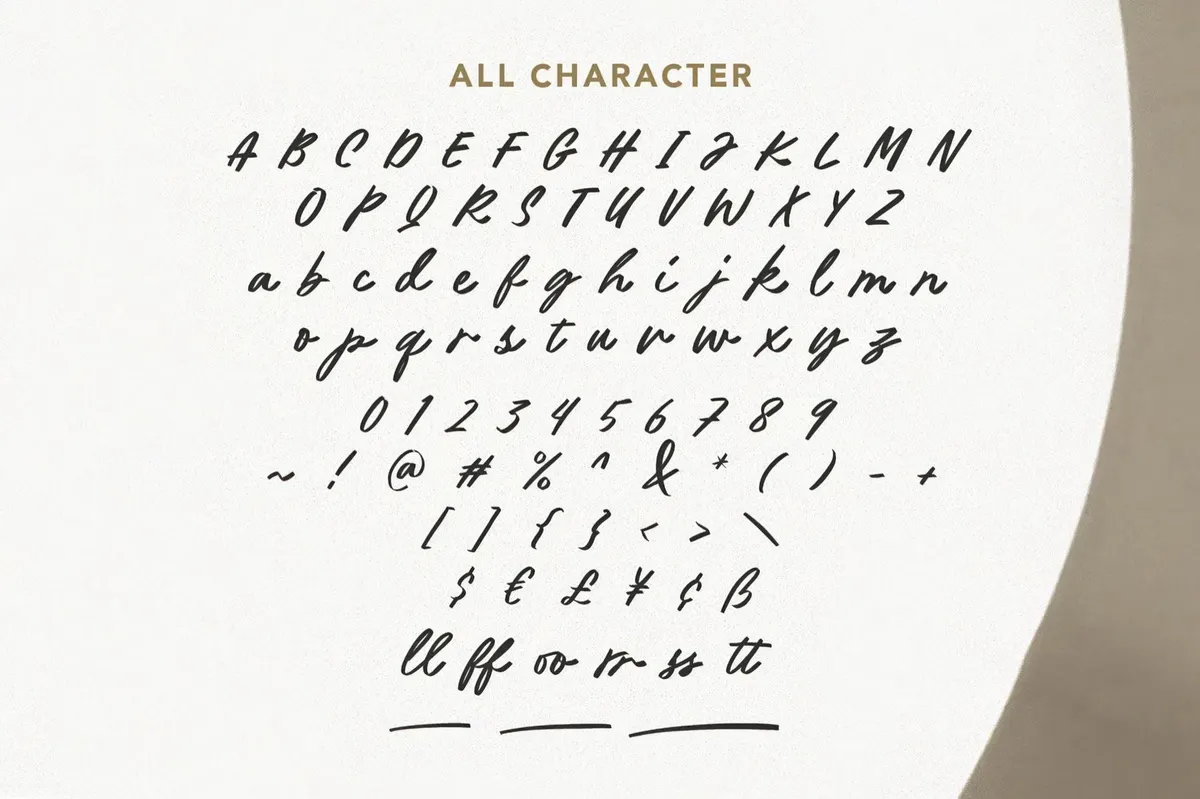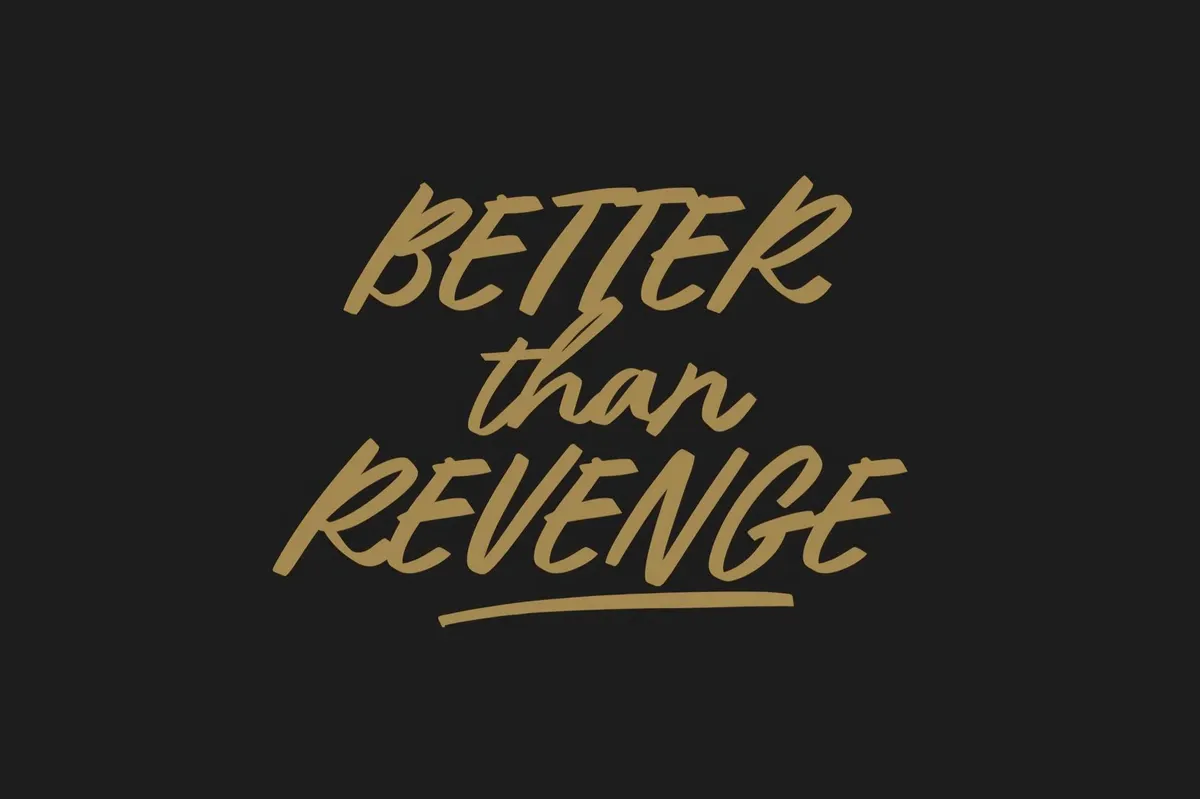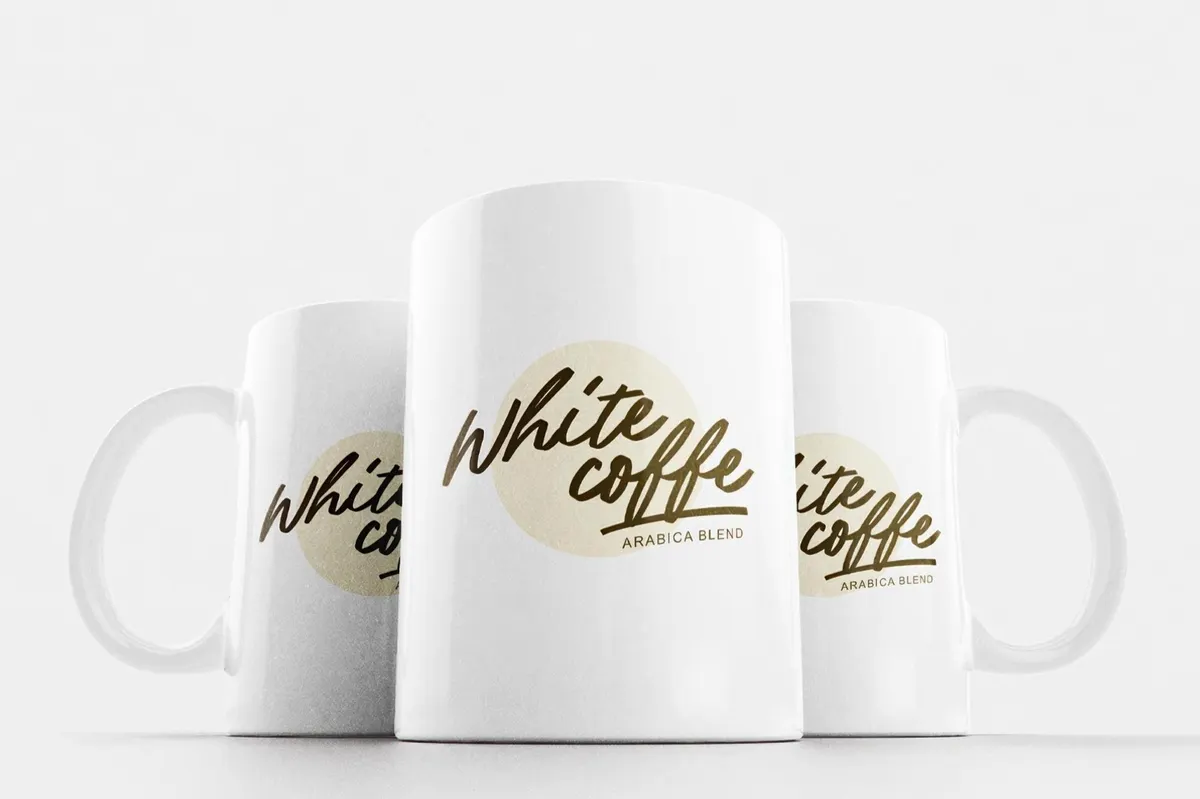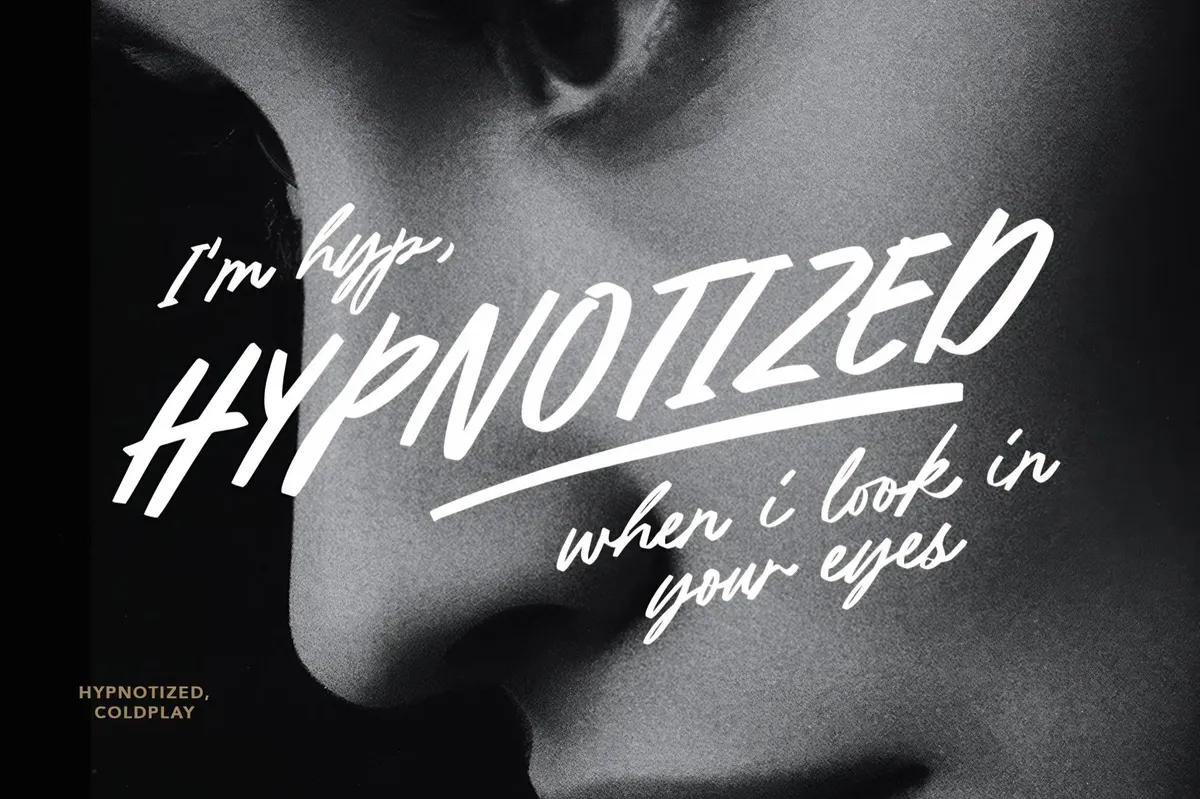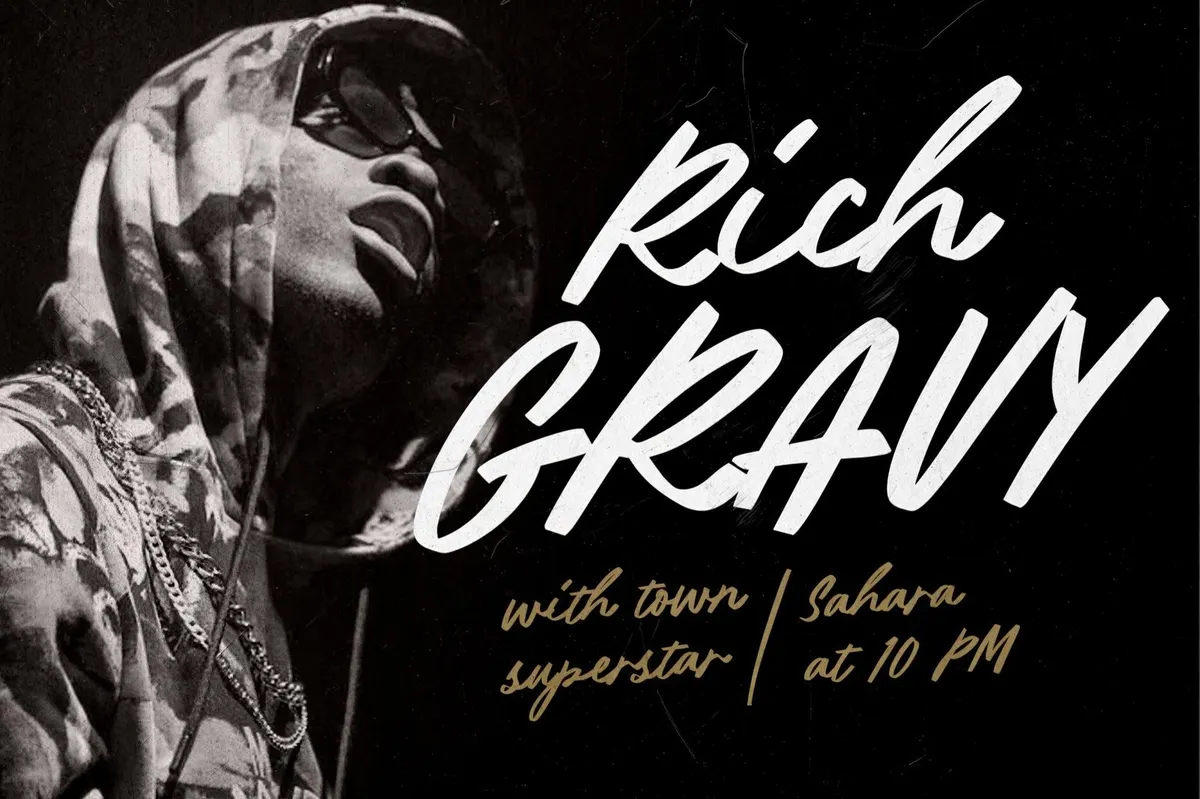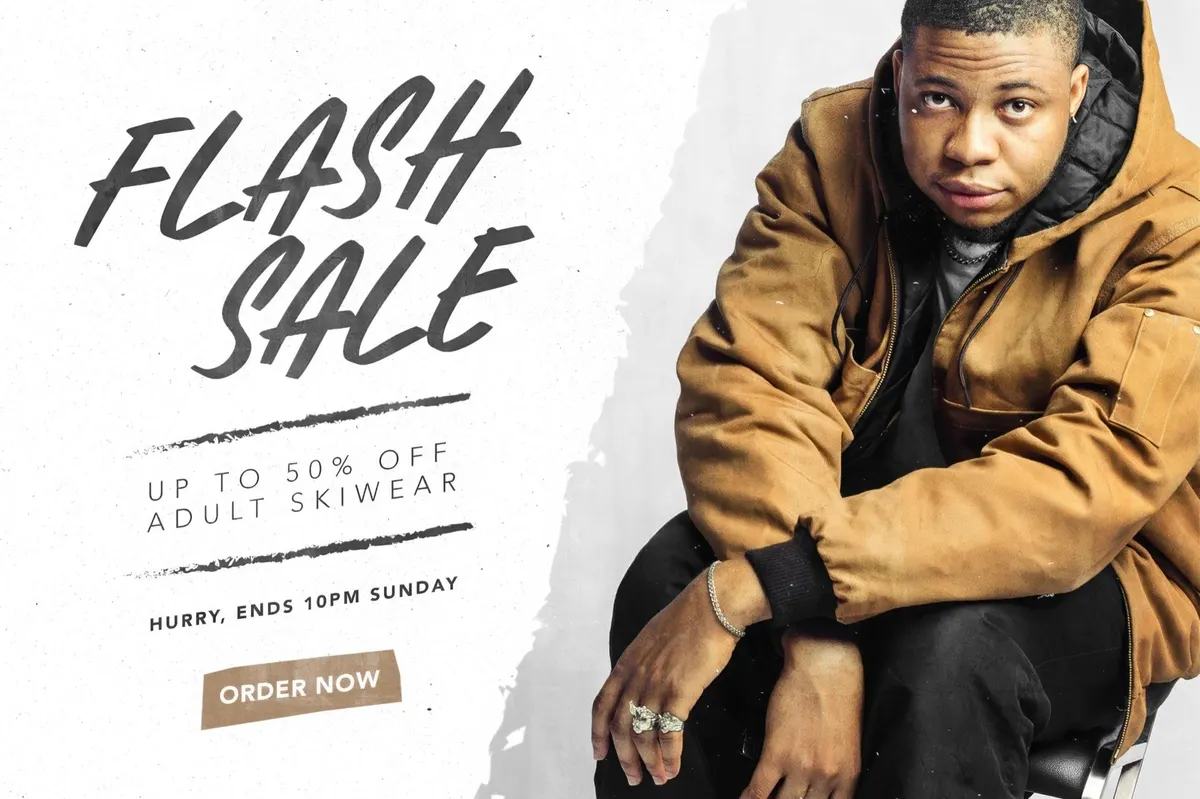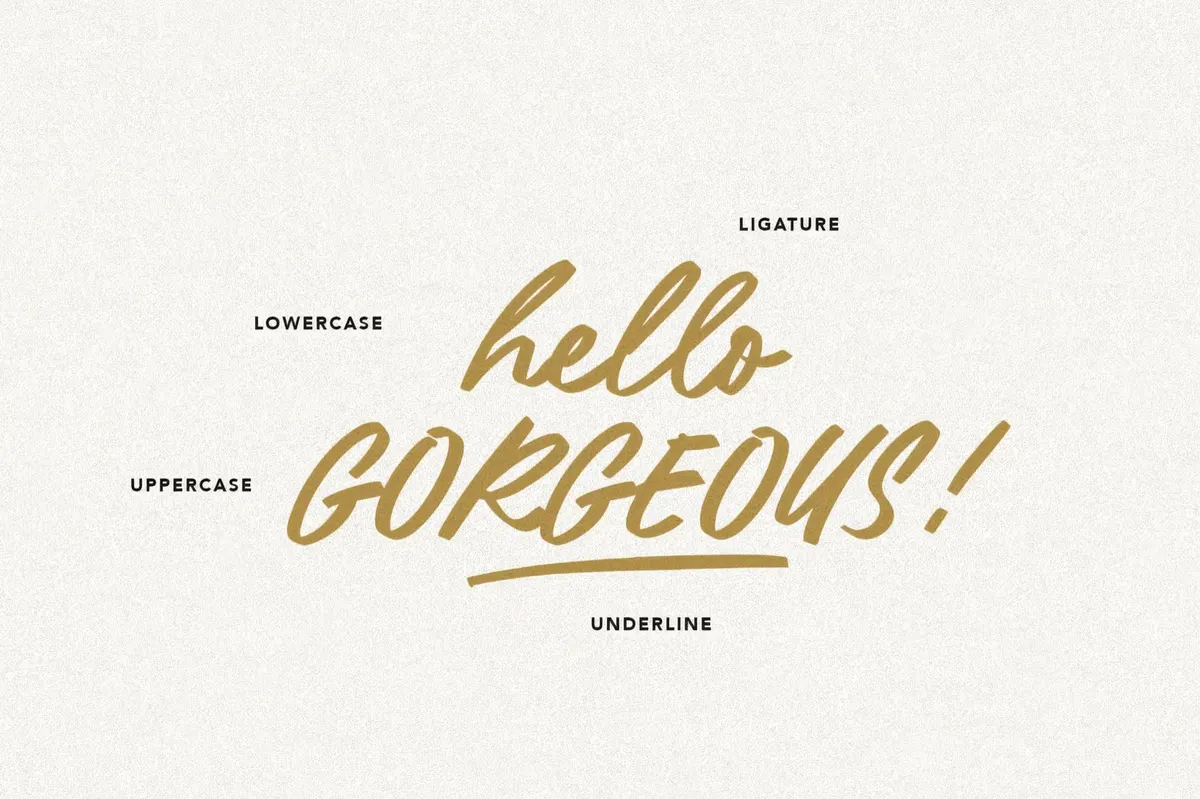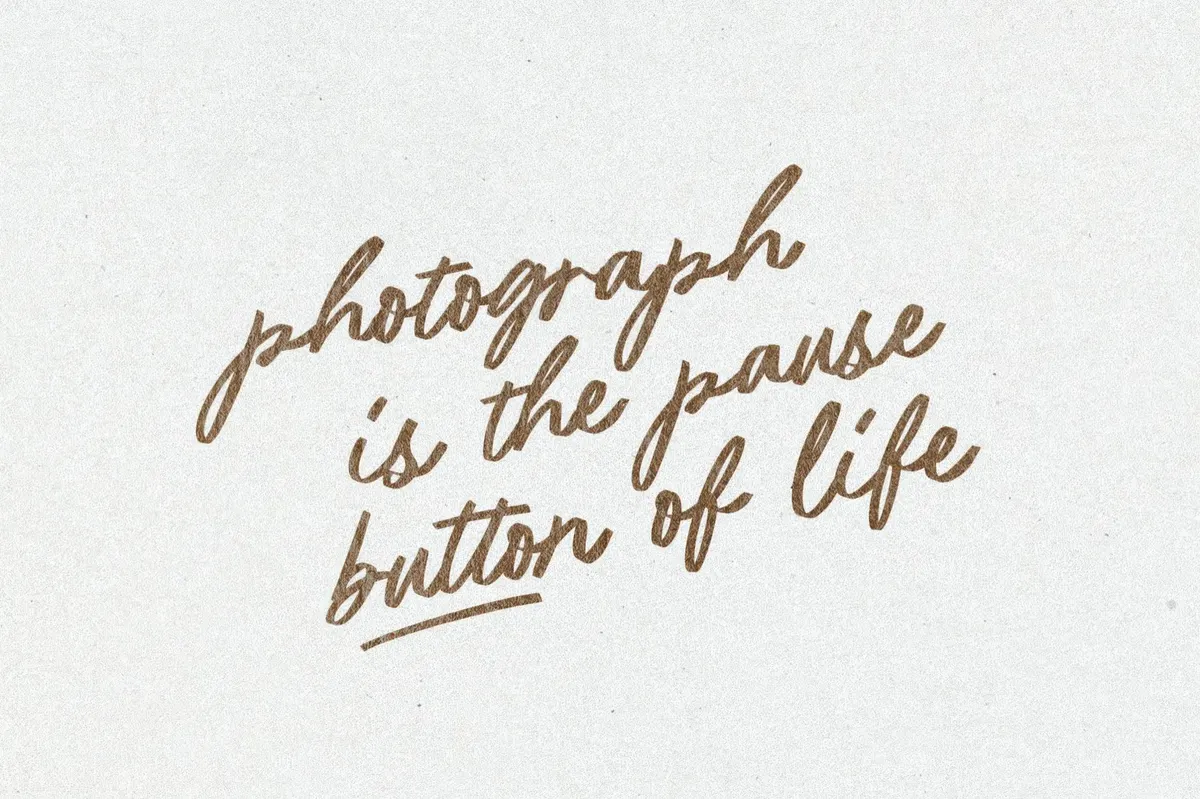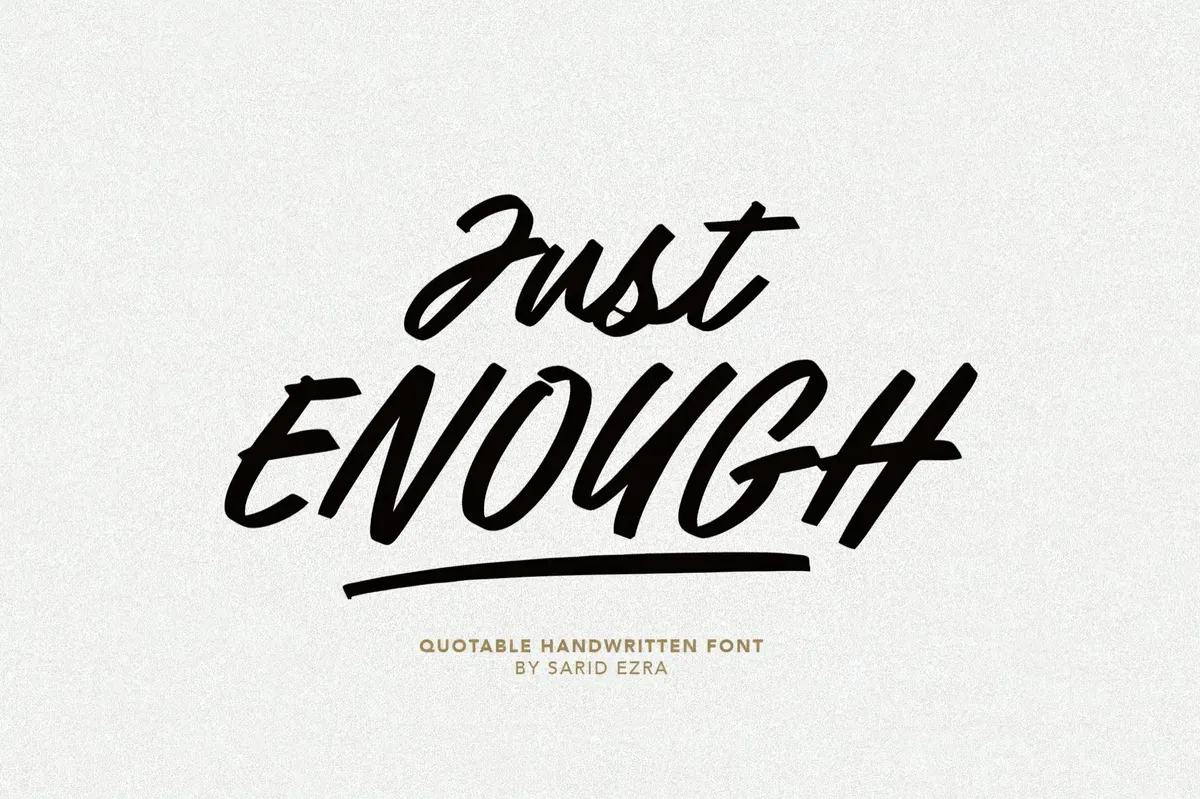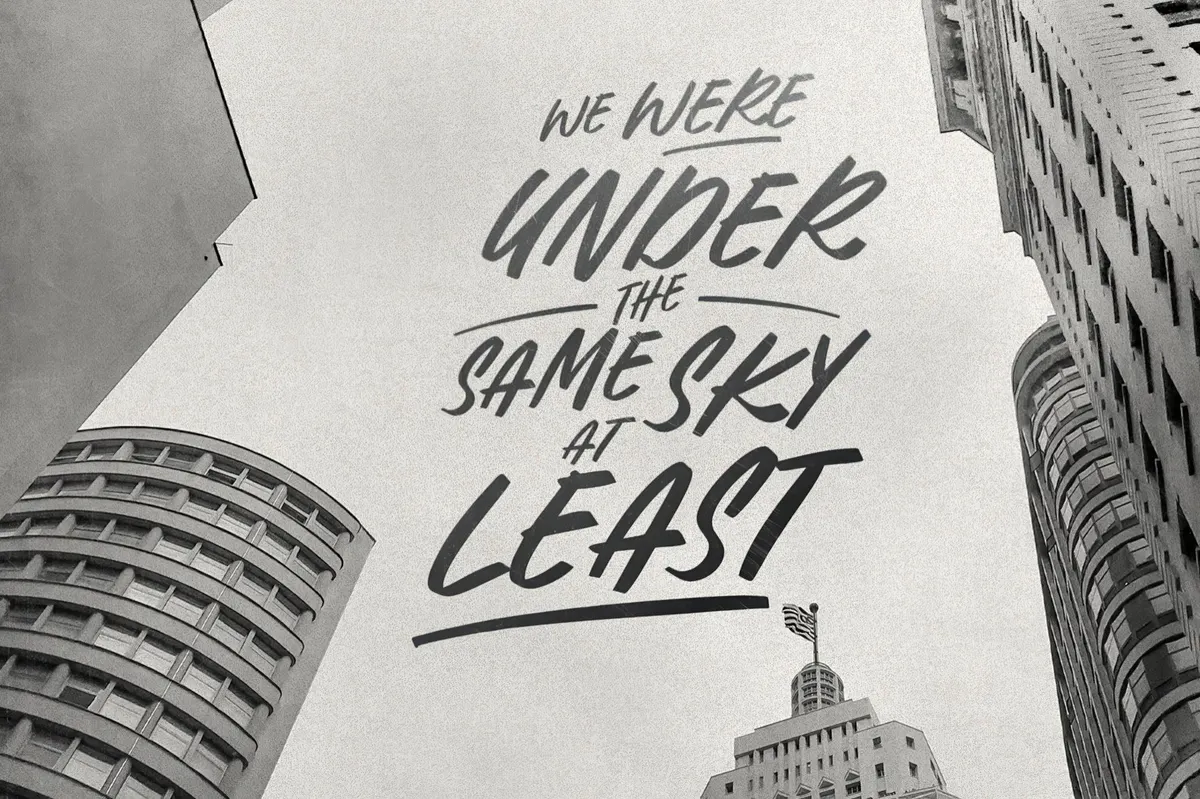
Just Enough — Quotable Font
Just Enough
Balancing between bold statement and casual charm, Just Enough makes the handwritten font that fits every quote-worthy moment. Perfect for logos, slogans, branding, or social media captions, it effortlessly adapts to amplify any message.
Just Enough is a versatile font that walks the line between raw authenticity and effortless elegance. The uppercase and lowercase styles look stunning on their own, as well as seamlessly paired. Built-in ligatures, underlines, and full multilingual support help you to create impactful designs with minimal effort. This font hits best for slogans and inspiring quotes, although, you also can incorporate it in a variety of handwritten style craving projects like logotypes or branding.